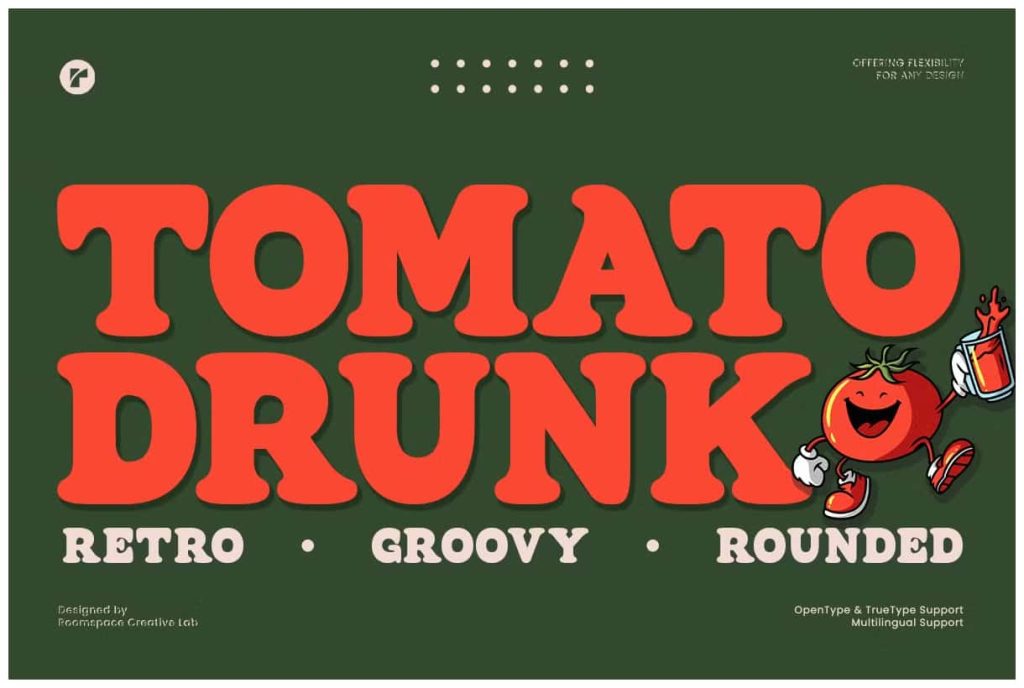
Tomato Drunk – Groovy Round Retro
Tomato Drunk is a bold retro serif font with rounded edges, playful charm, and groovy style. Designed to evoke a modern yet nostalgic vibe